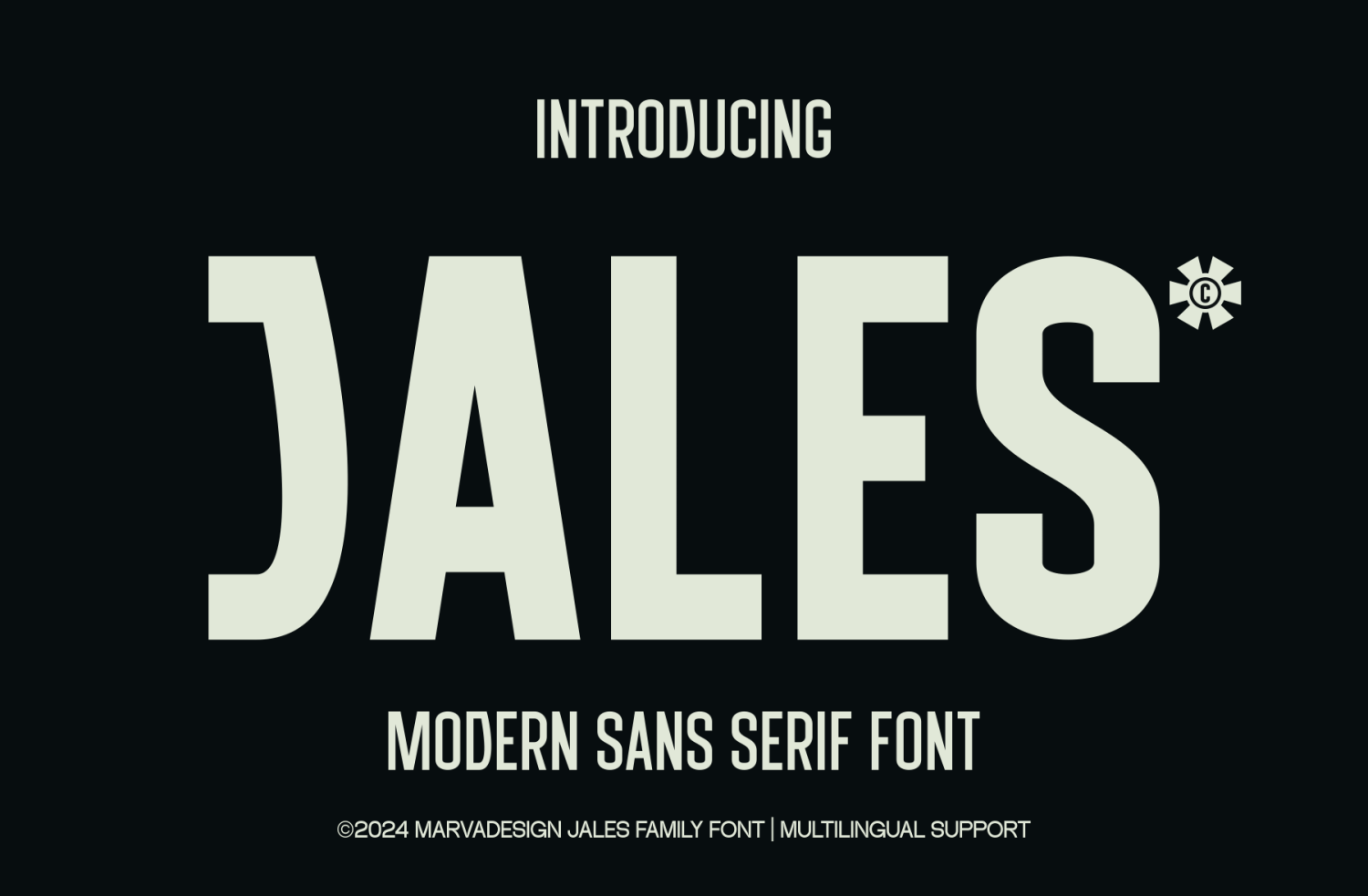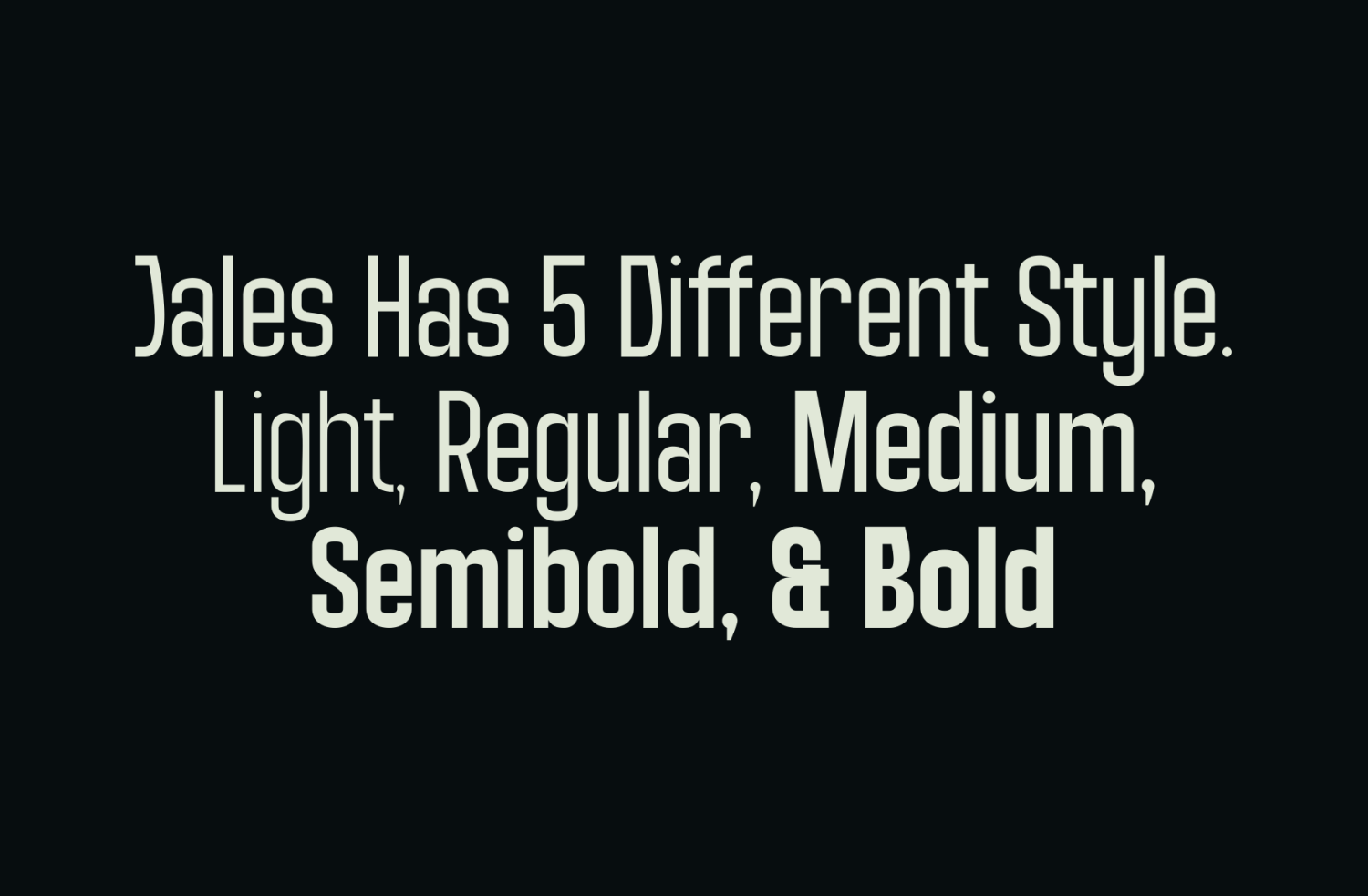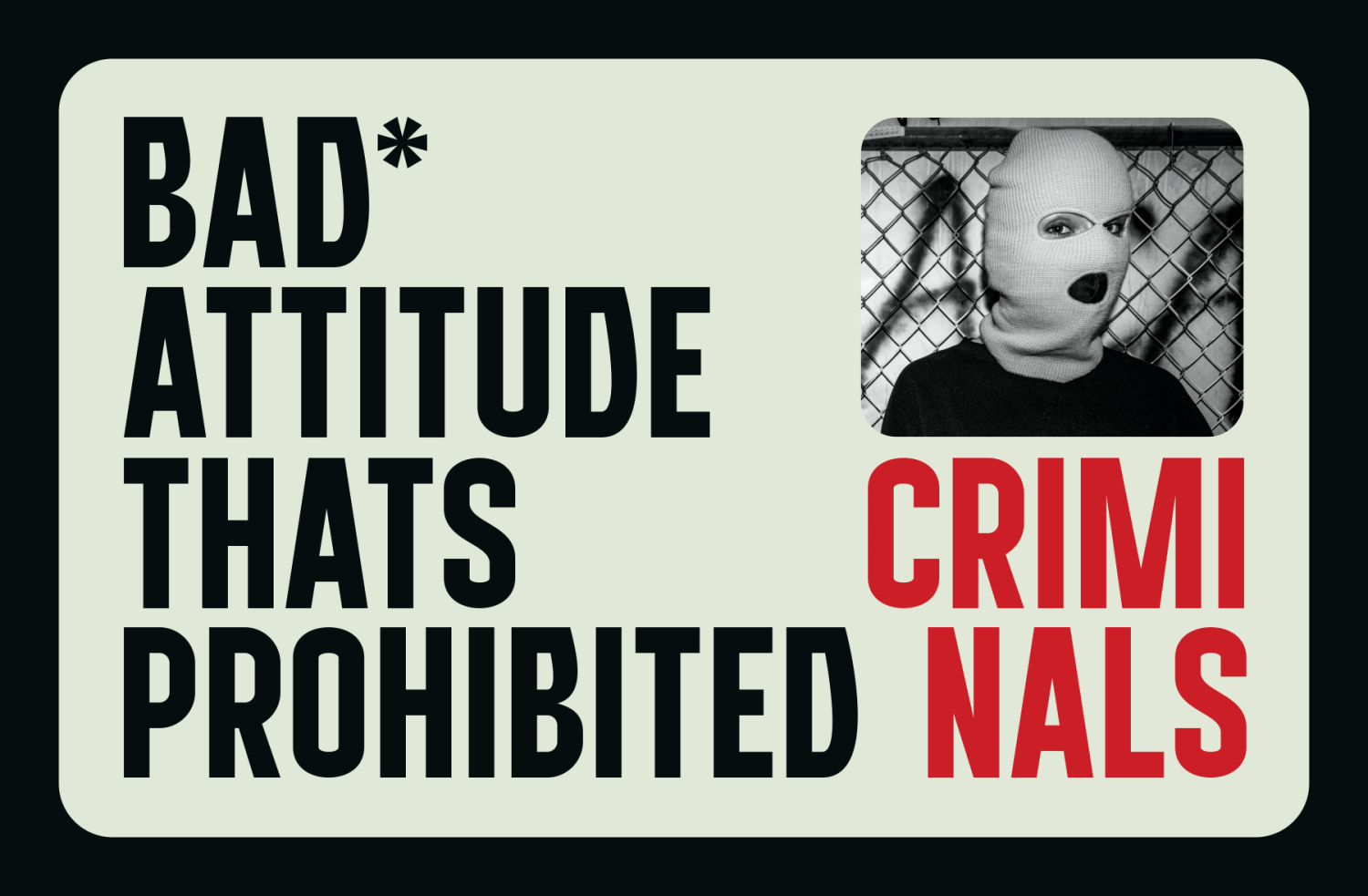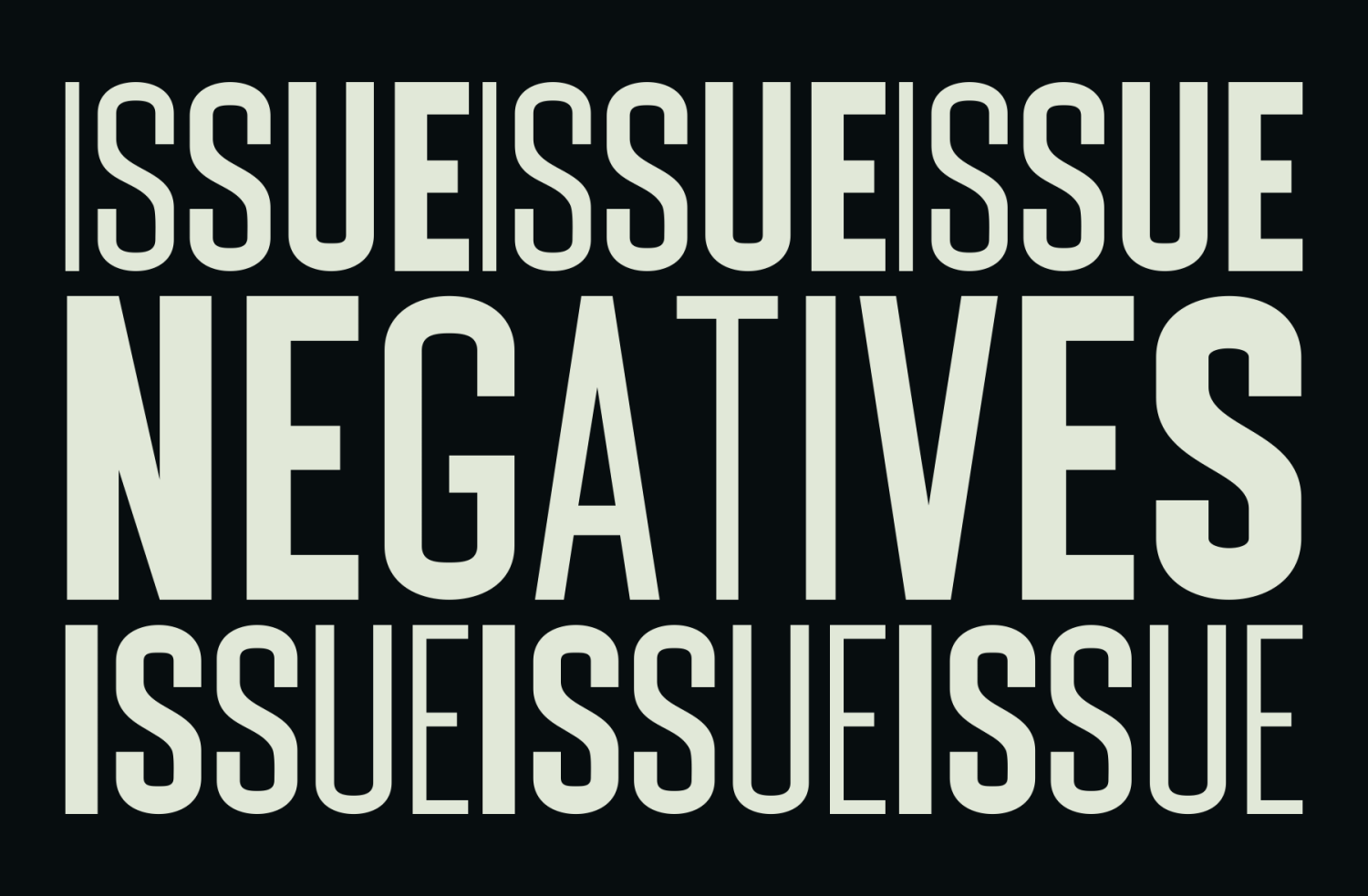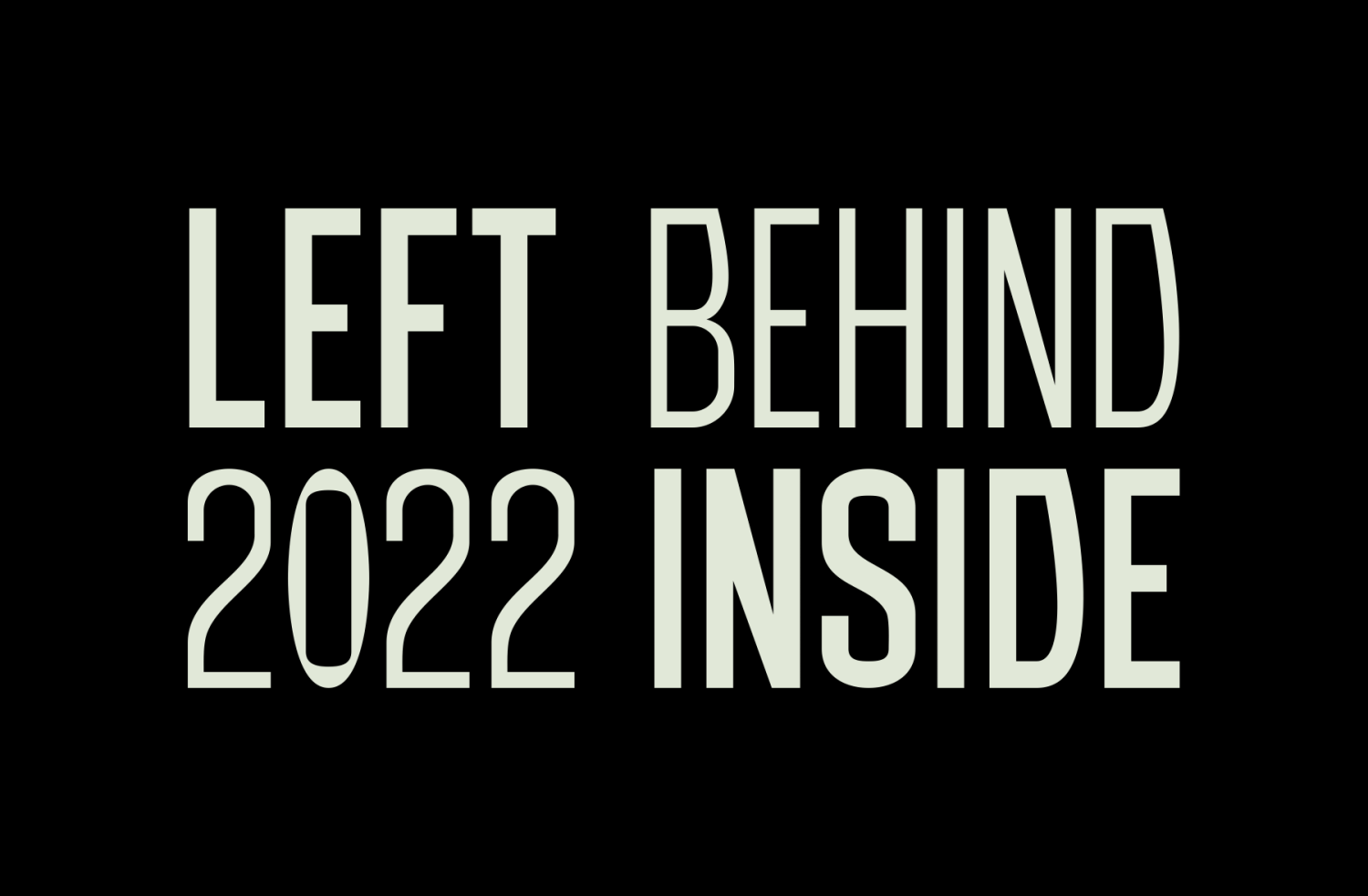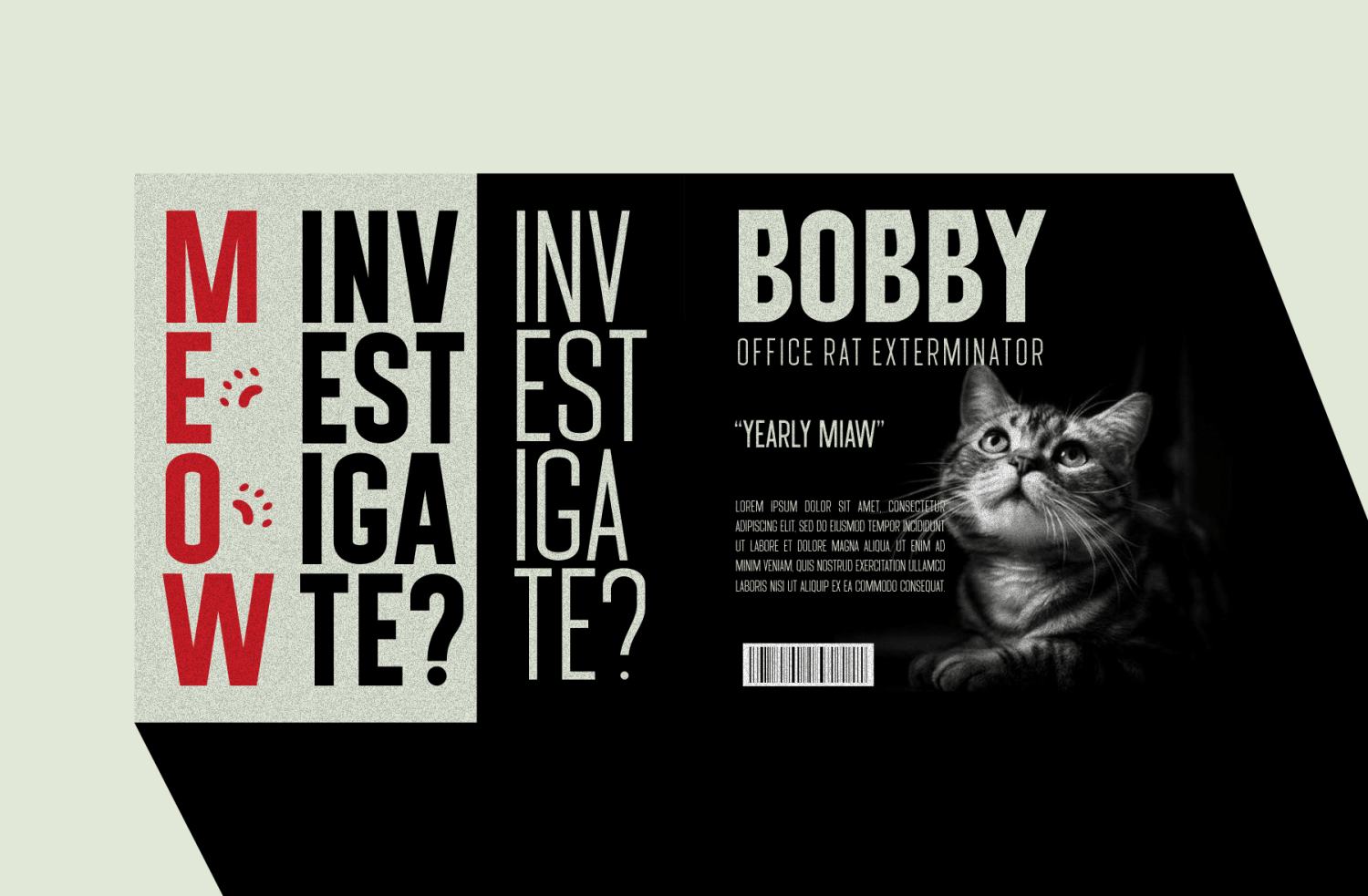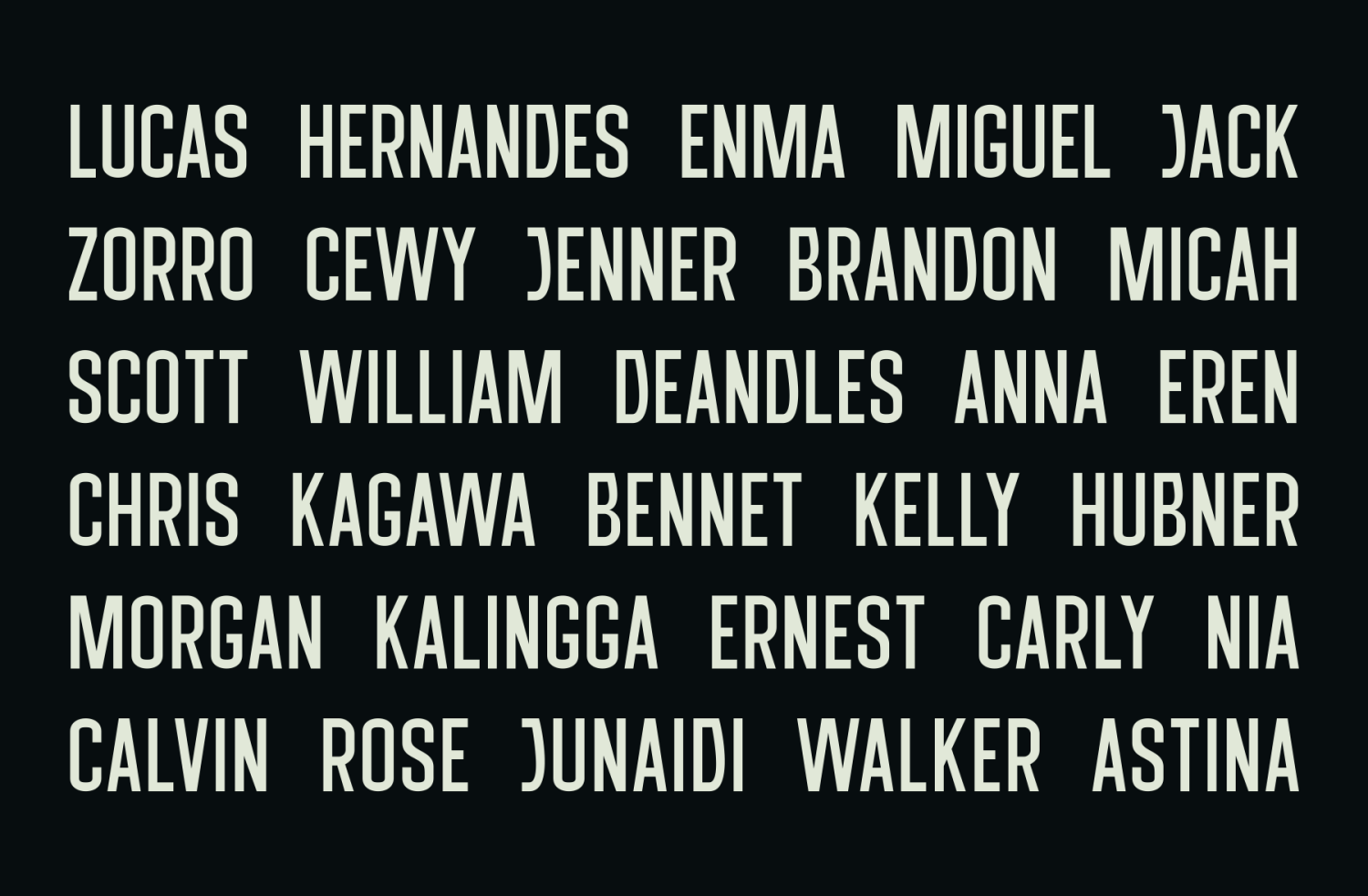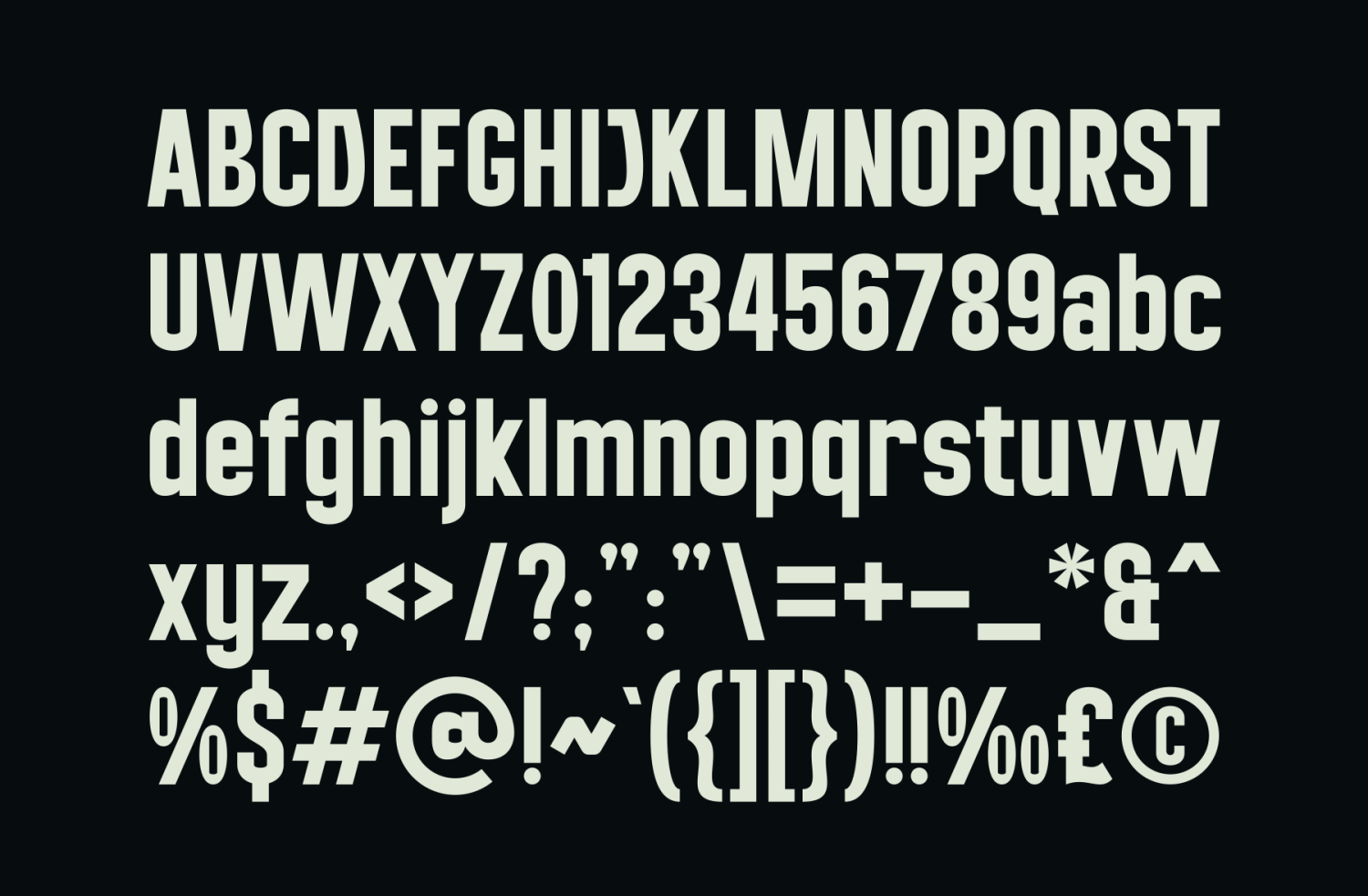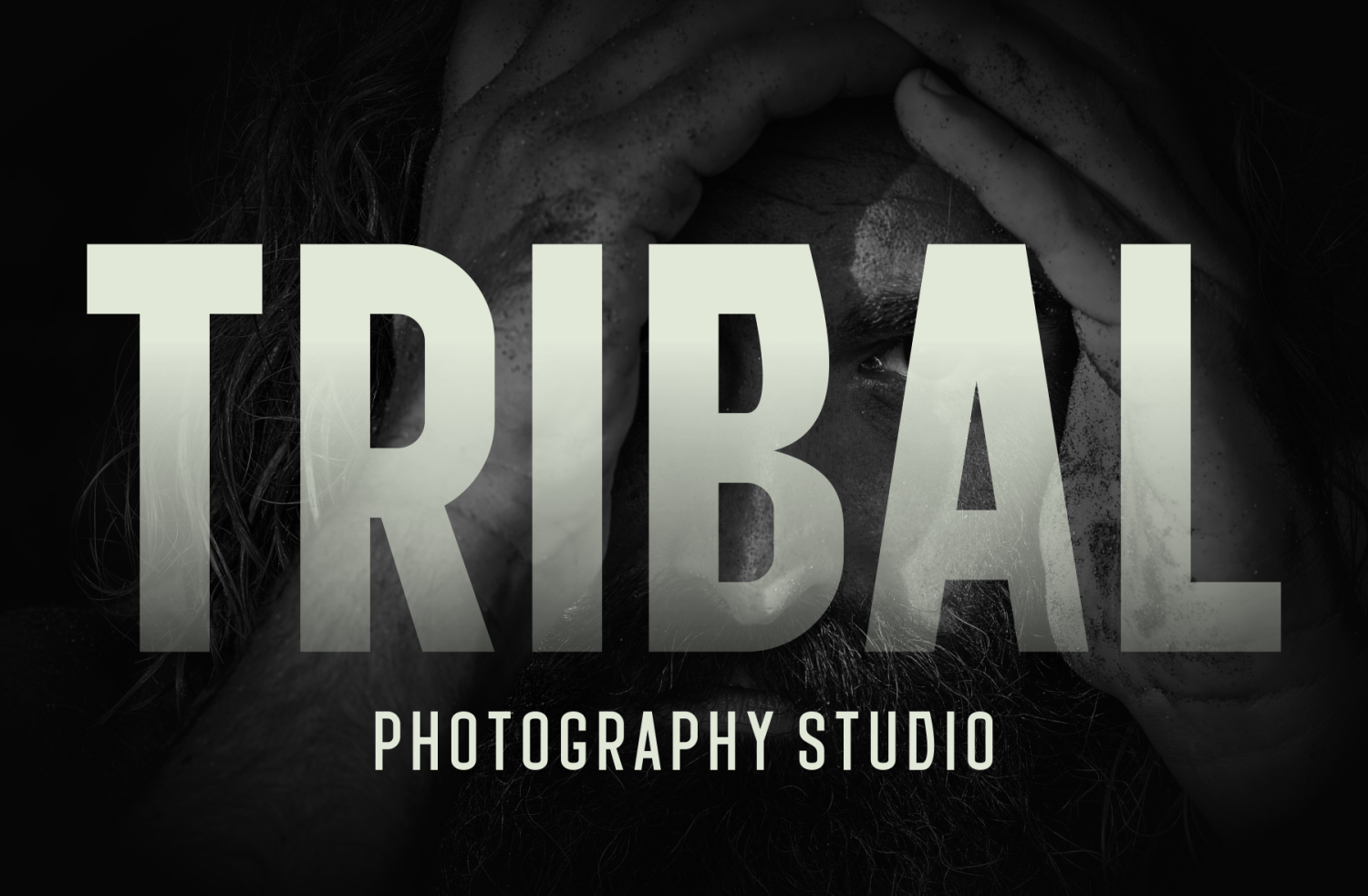
Jales
Font Family by Marvadesign
Introducing new JALES Font is a Modern Condensed Sans Serif typeface designed to convey sophistication and clarity. With its sleek, narrow design, JALES offers multiple weight families including Light, Regular, Medium, Semibold, and Bold. This versatility in weight options makes it ideal for a variety of business applications, from branding to editorial design, delivering a clean, professional look that enhances readability and presence. JALES condensed style allows for efficient space utilization, making it an excellent choice for businesses looking to communicate more within limited spaces—perfect for headlines, corporate materials, and branding that aims to leave a strong impression. Its modern design is adaptable across industries, bringing a contemporary touch that balances both functionality and style.